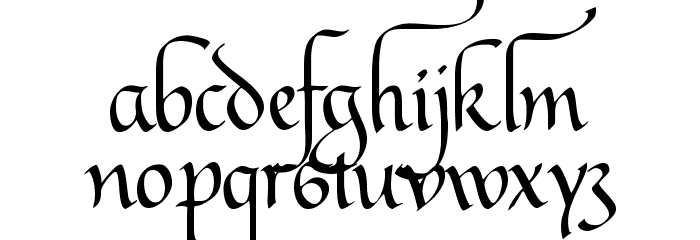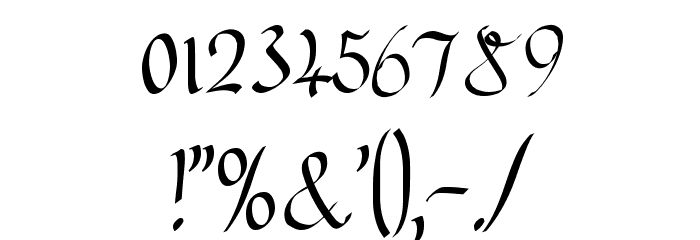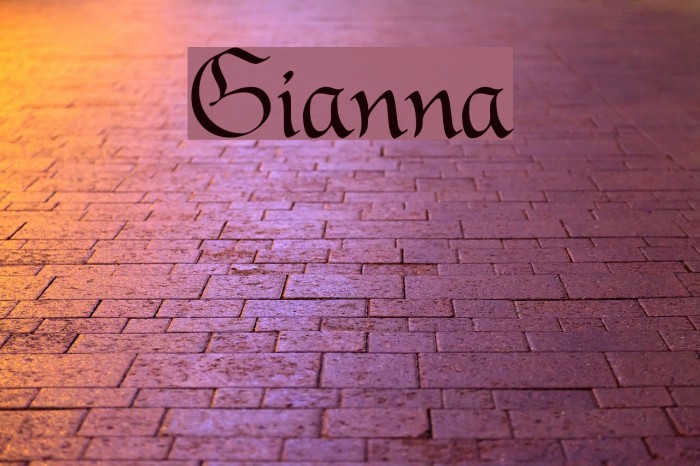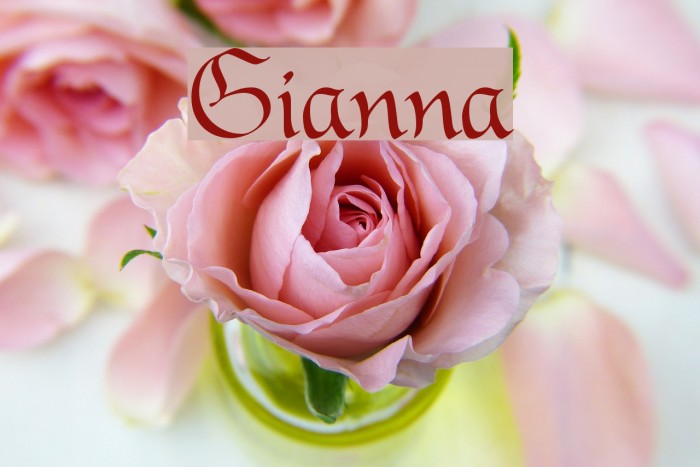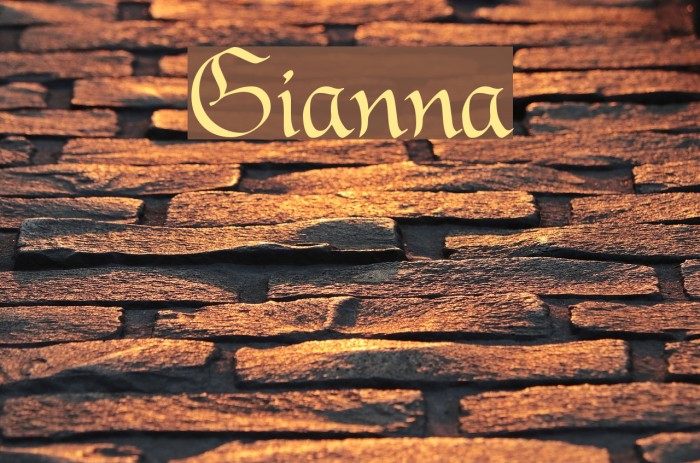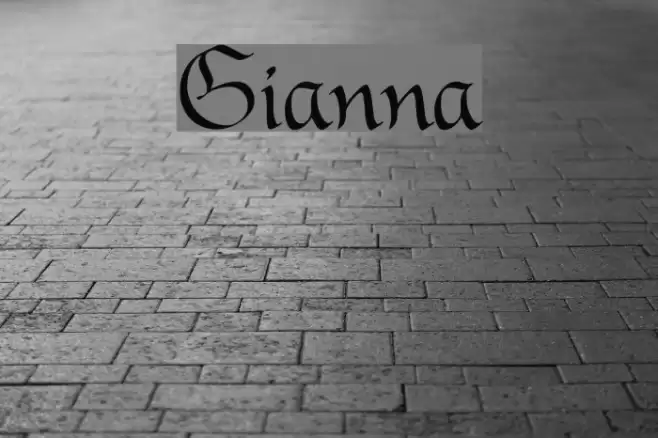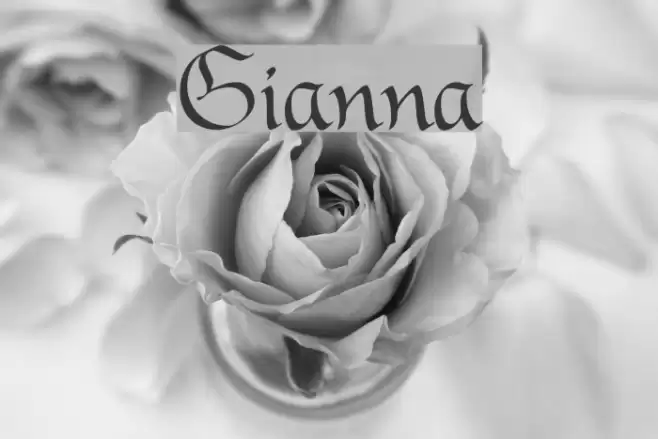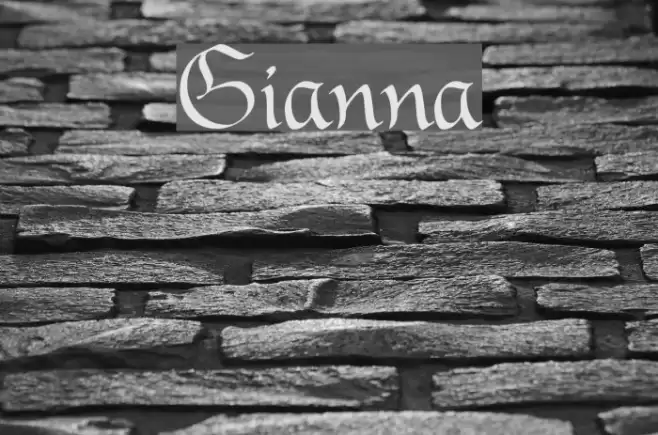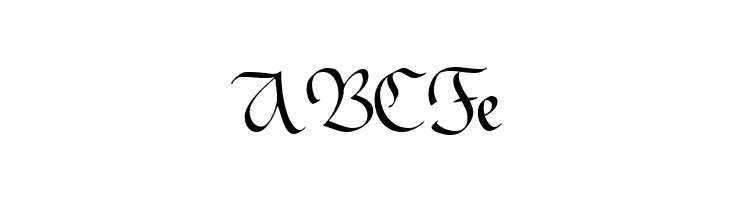
Gianna Font
This font features an elegant and sophisticated design, characterized by its flowing, calligraphic style. The letters exhibit a high degree of contrast between thick and thin strokes, giving it a dynamic and expressive appearance. The uppercase letters are ornate, with intricate curves and flourishes, while the lowercase letters maintain a more restrained yet still decorative form. The numerals and special characters are consistent with the overall aesthetic, adding to its cohesive look. This font is reminiscent of traditional calligraphy, combining classic elegance with a modern twist.
An elegant, calligraphic font with high contrast and ornate details.
- Proposed Projects: Ideal for wedding invitations, luxury branding, certificates, and artistic projects.
- Overall Style: Classic
- Use Case: Logos, Headlines, Decorative text